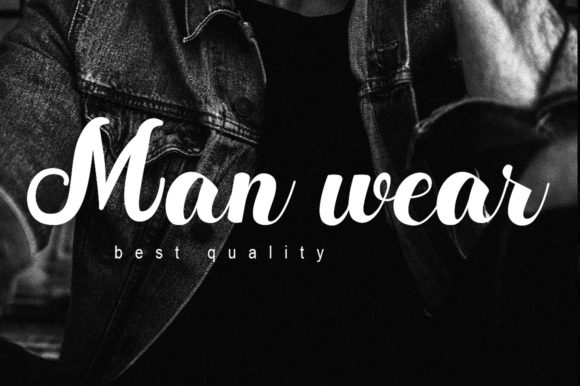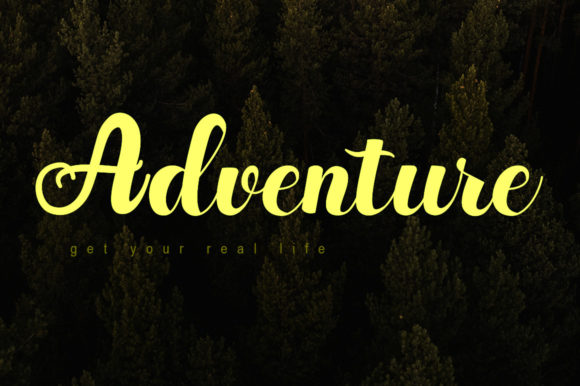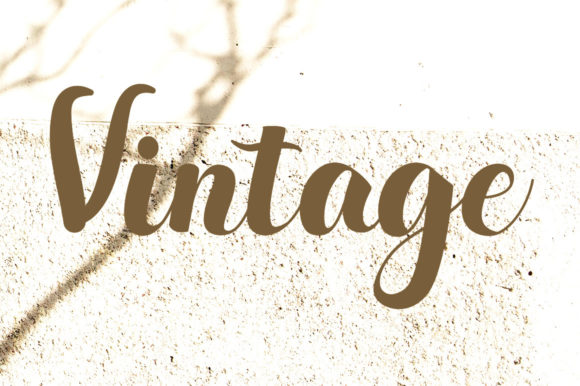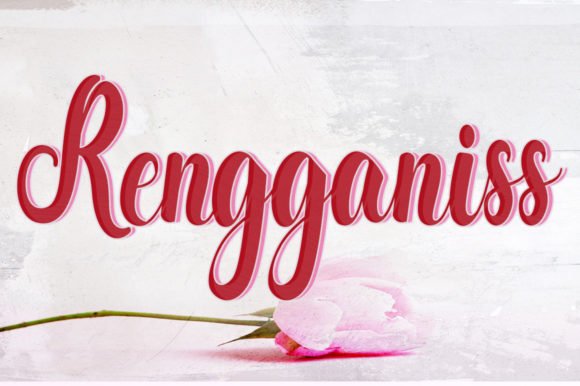
Introduction to Rengganis Font
Rengganis is a gorgeous and thick lettered script font.
It is made for packaging products, invitation cards, flyers, event poster, name card Add it confidently to your projects, and you will love the results.